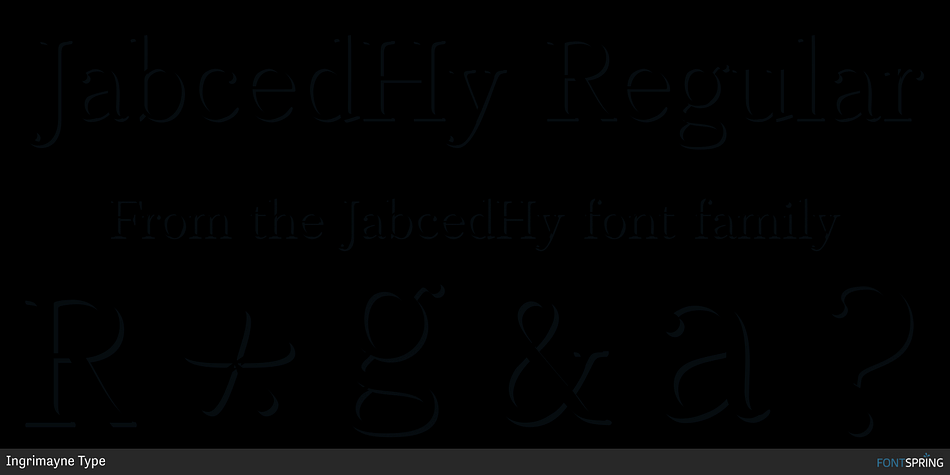
JabcedHy Regular
Designed by Robert Schenk, JabcedHy is a serif font family. This typeface has eight styles and was published by Ingrimayne Type.
JabcedHy is a serifed, legible typeface in the traditional four styles.
It is a hybrid, constructed by blending two other typefaces, and since the result seemed better than either parent, the parents were retired.